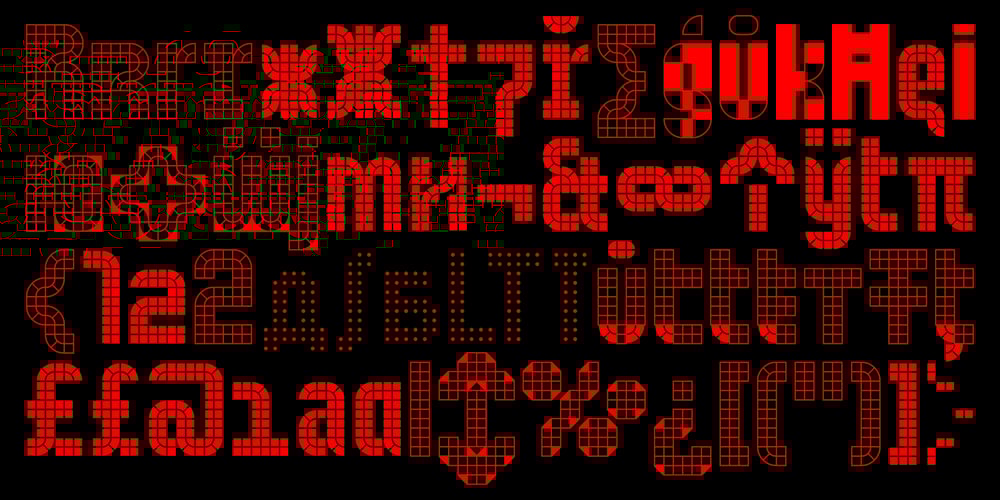
Systm Variable Font Family was designed by Simon Helmstetter and published by Blaze Type. Systm Variable contains 9 styles and family package options. SYSTM is a modular and metric font family built by two components – a quadrant and a square — displayed on a grid.Its design has been made to satisfy any grid obsession while echoing pavement’s principles, brutalist architecture, early interface designs and modular design in the broadest sense.Featuring one variable axis, applying to the outlines’ thickness, SYSTM lets designers reach any kind of style, weight and text grayness.Above all, SYSTM has been designed to provide an efficient and versatile visual identity tool – including over 1000 glyphs, multiple stylistic sets and grids both for latin and cyrillic letters.Make SYSTM your system.